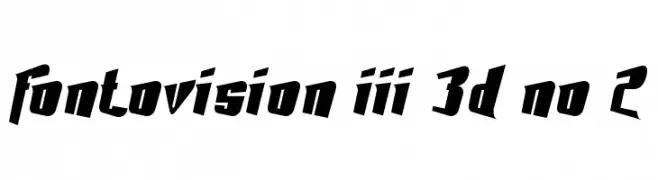
( Fonts by Dieter Steffmann )
A bold, slightly condensed serif font with a classic yet modern appeal.
( Fonts by Dieter Steffmann )
A bold, shadowed font with a dynamic, three-dimensional appearance.
( Fonts by Dieter Steffmann )
An ornate, decorative blackletter-inspired font with intricate flourishes.
( Fonts by Dieter Steffmann )
An ornate and decorative font with intricate flourishes, ideal for regal and elegant designs.
( Fonts by Dieter Steffmann )
Ornate, decorative initials with intricate borders, ideal for elegant designs.